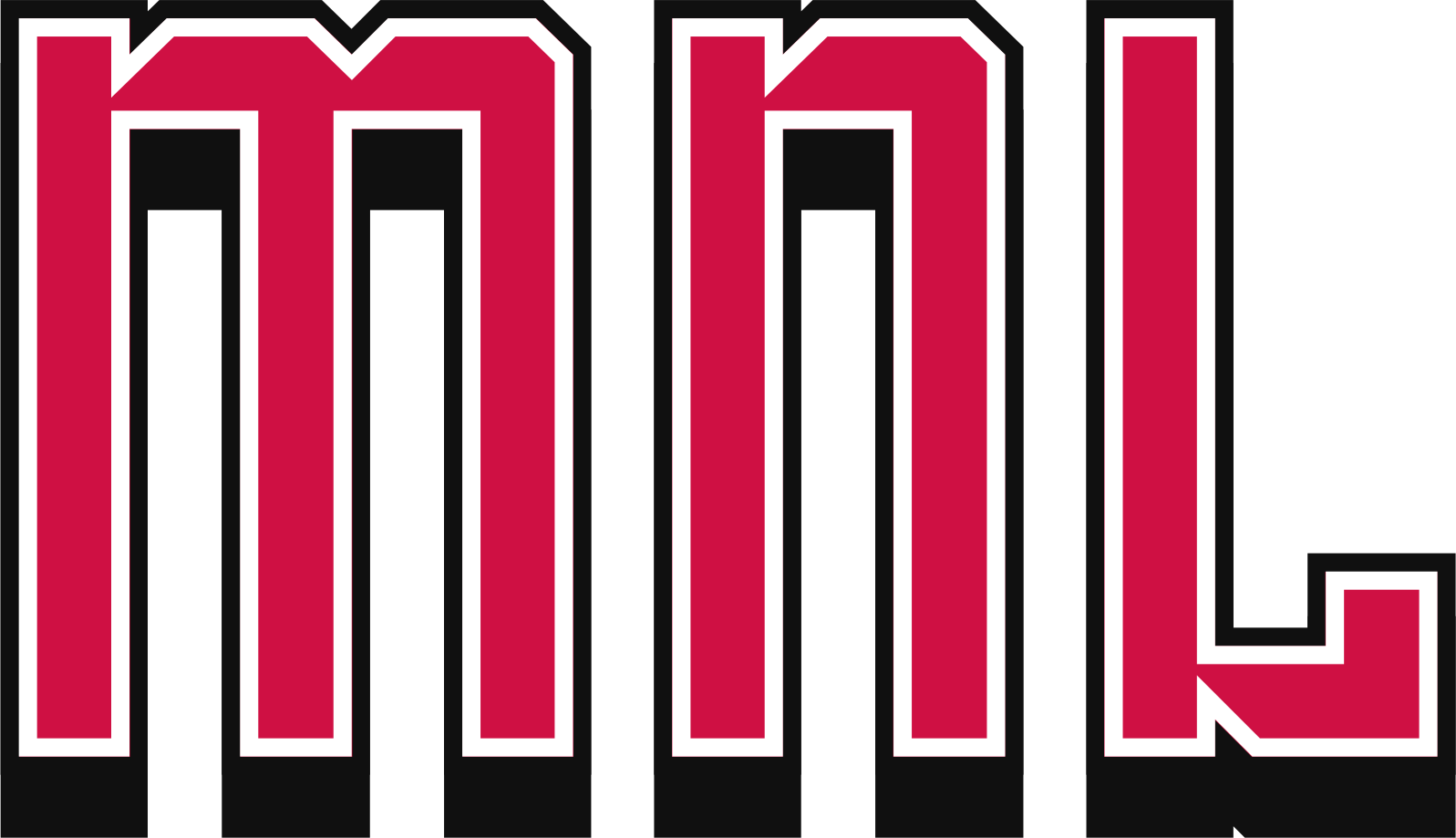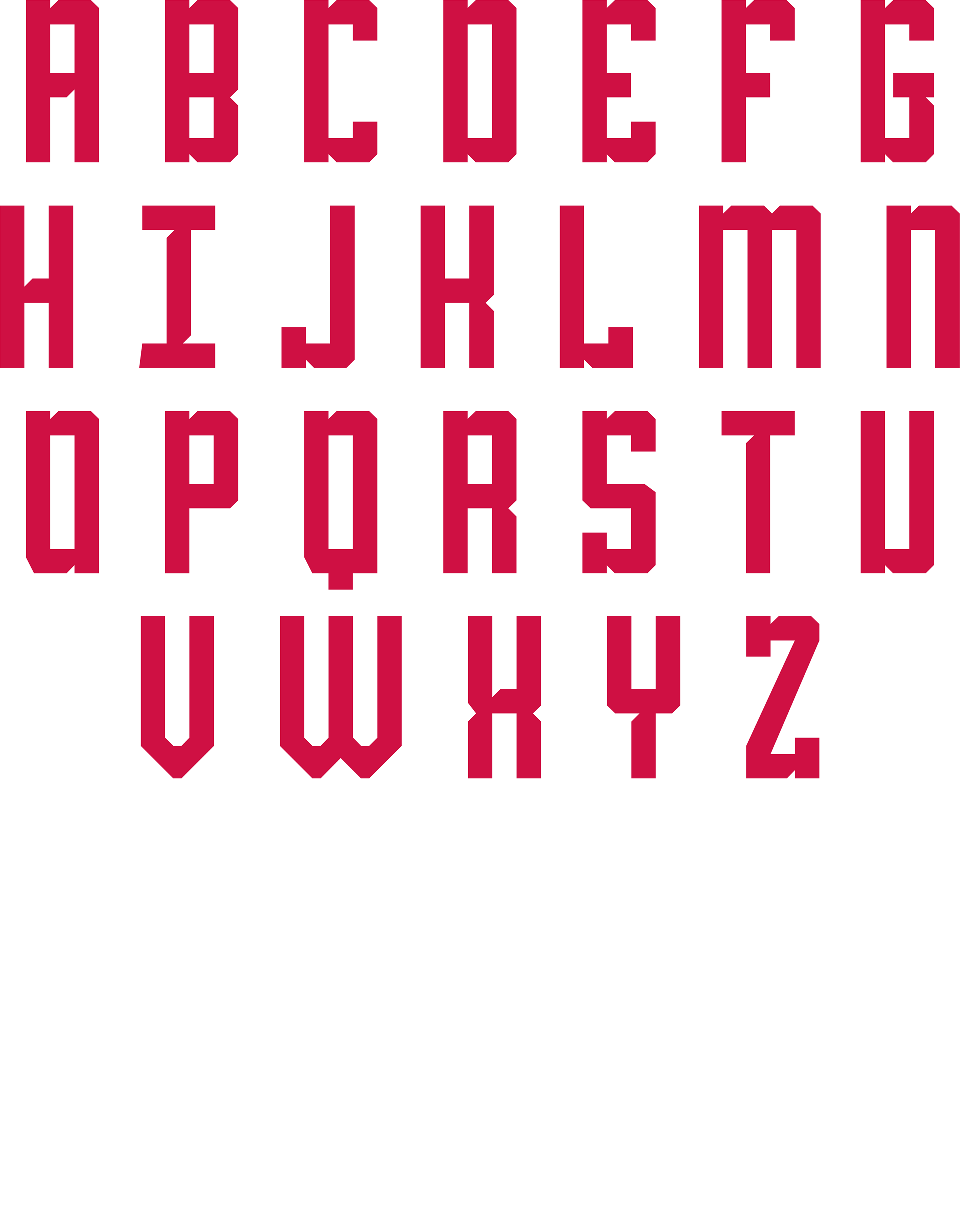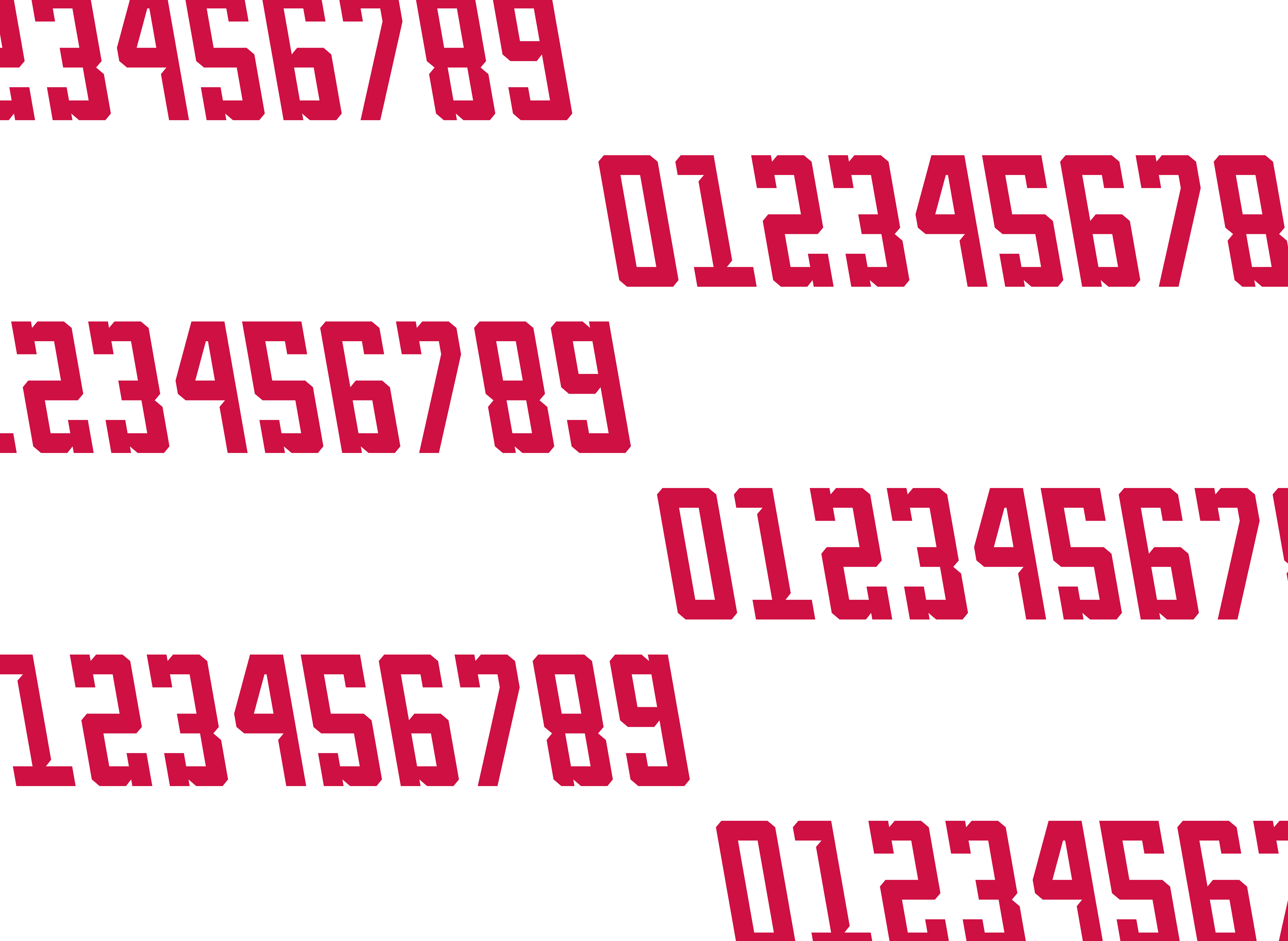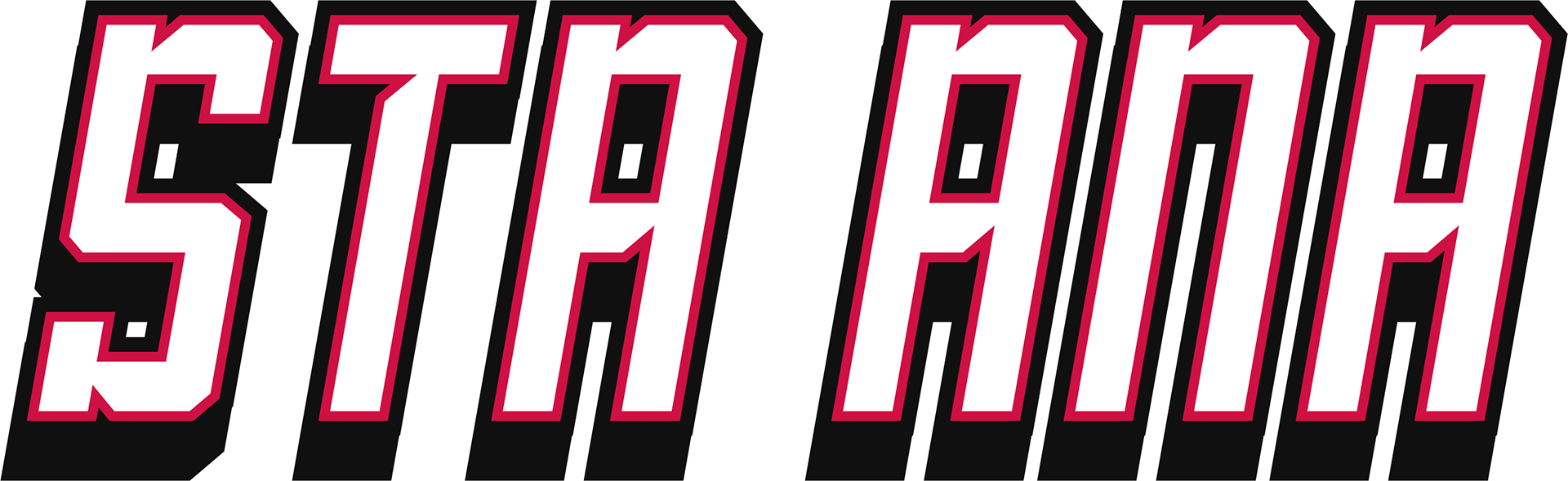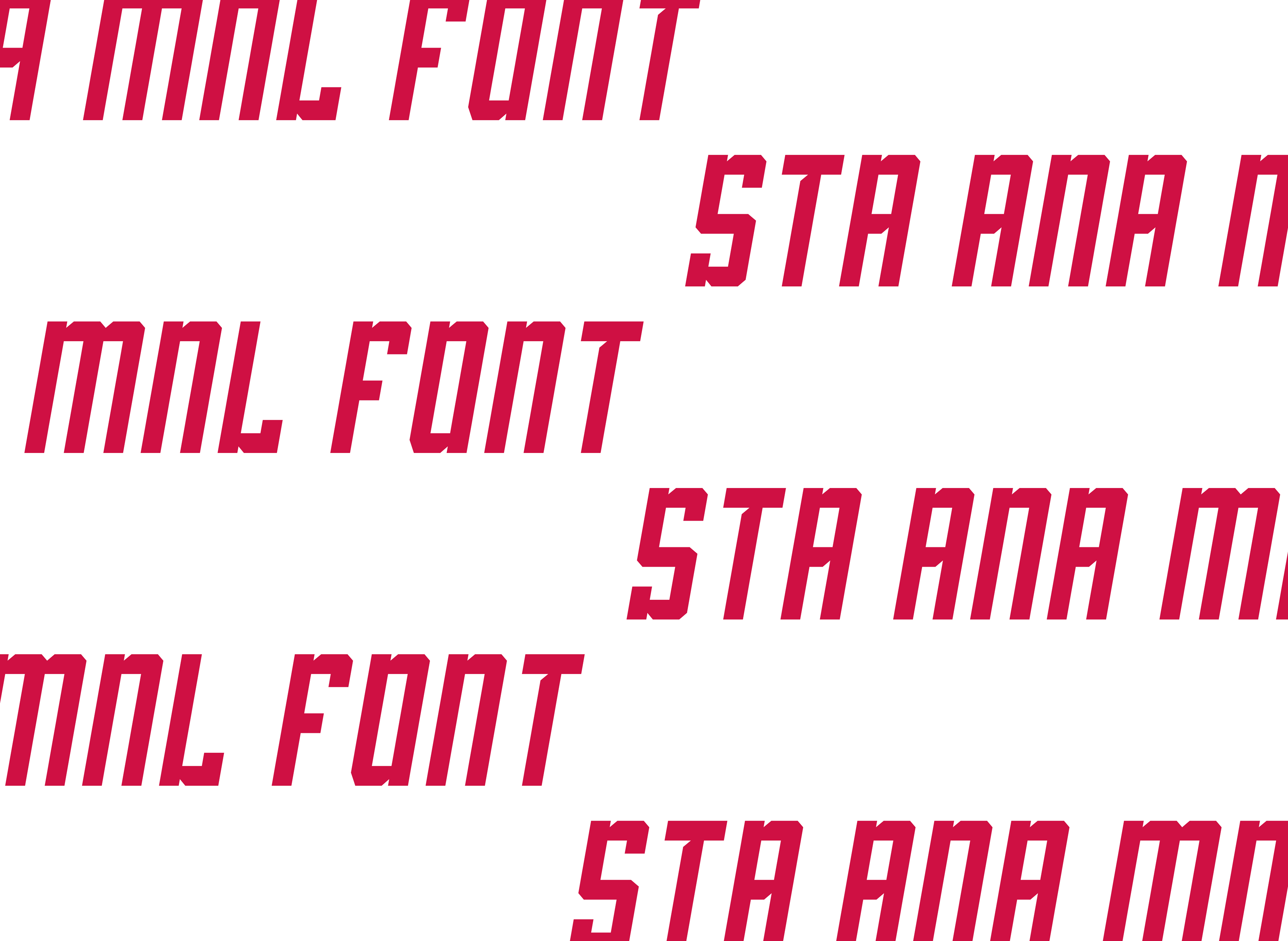
MNL font series is based from Manila Philippines places. I'm really specialized working on sporty look font as I'm a sport designer. I want to create font that I really want to use in my graphics.